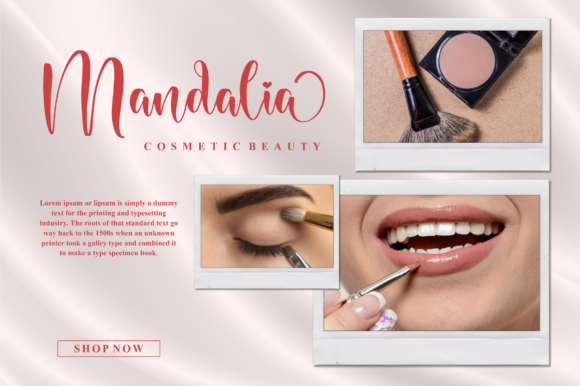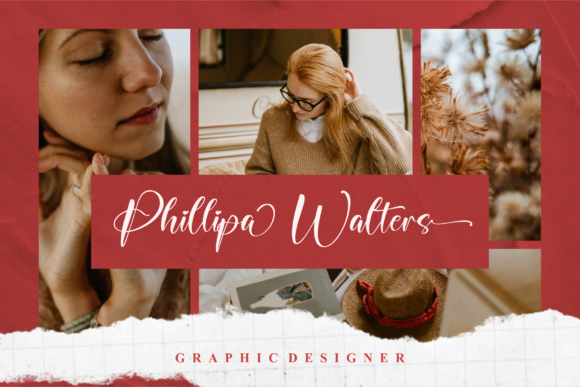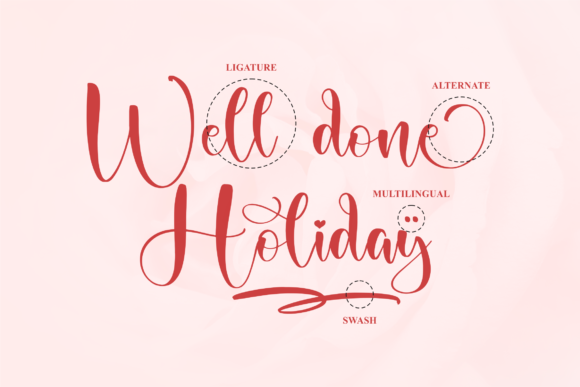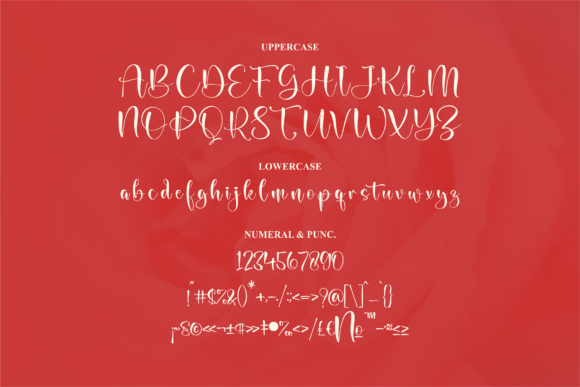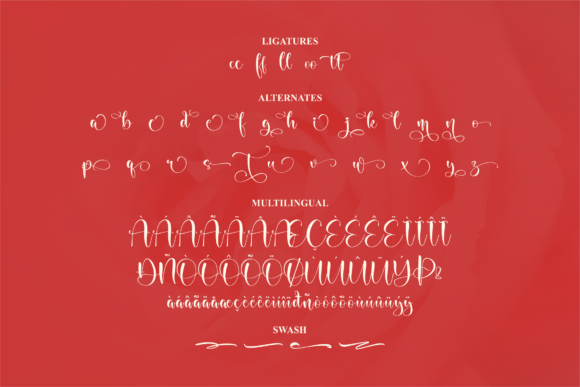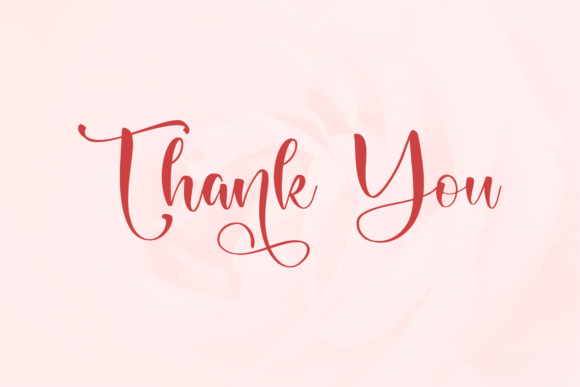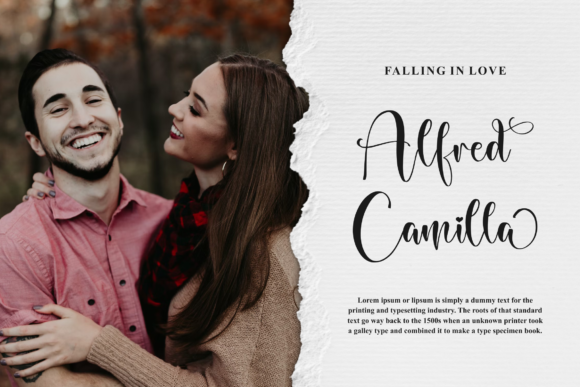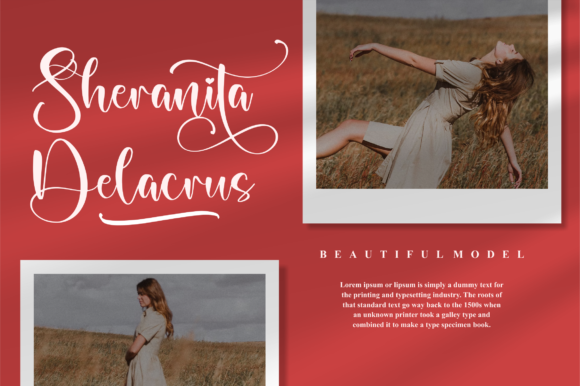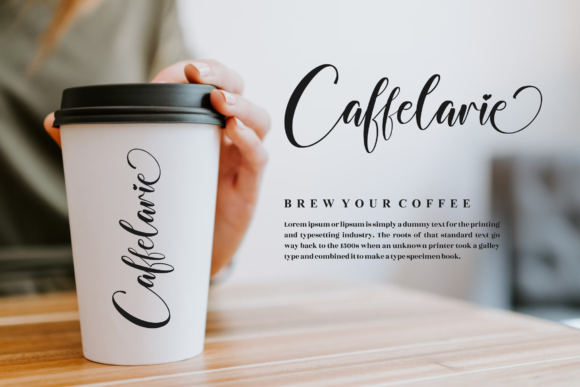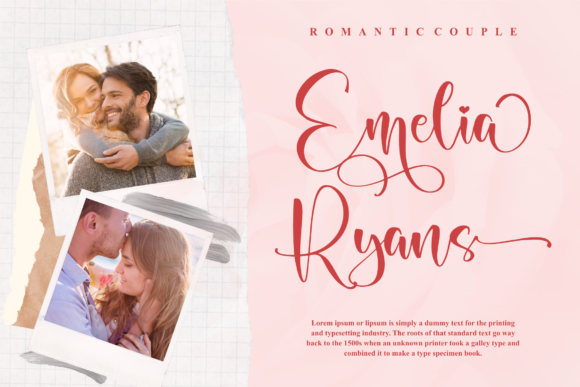
Valentina Font
About Valentina Font
Valentina is a romantic and delicate handwritten font that embodies charm and elegance in every character. Use it for projects that need lovely, romantic typography! This font is PUA encoded which means you can access all glyphs and swashes with ease!